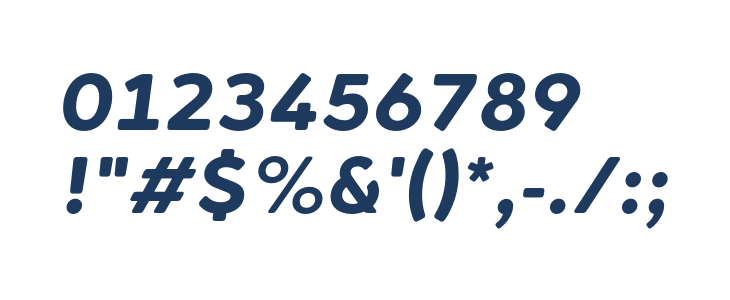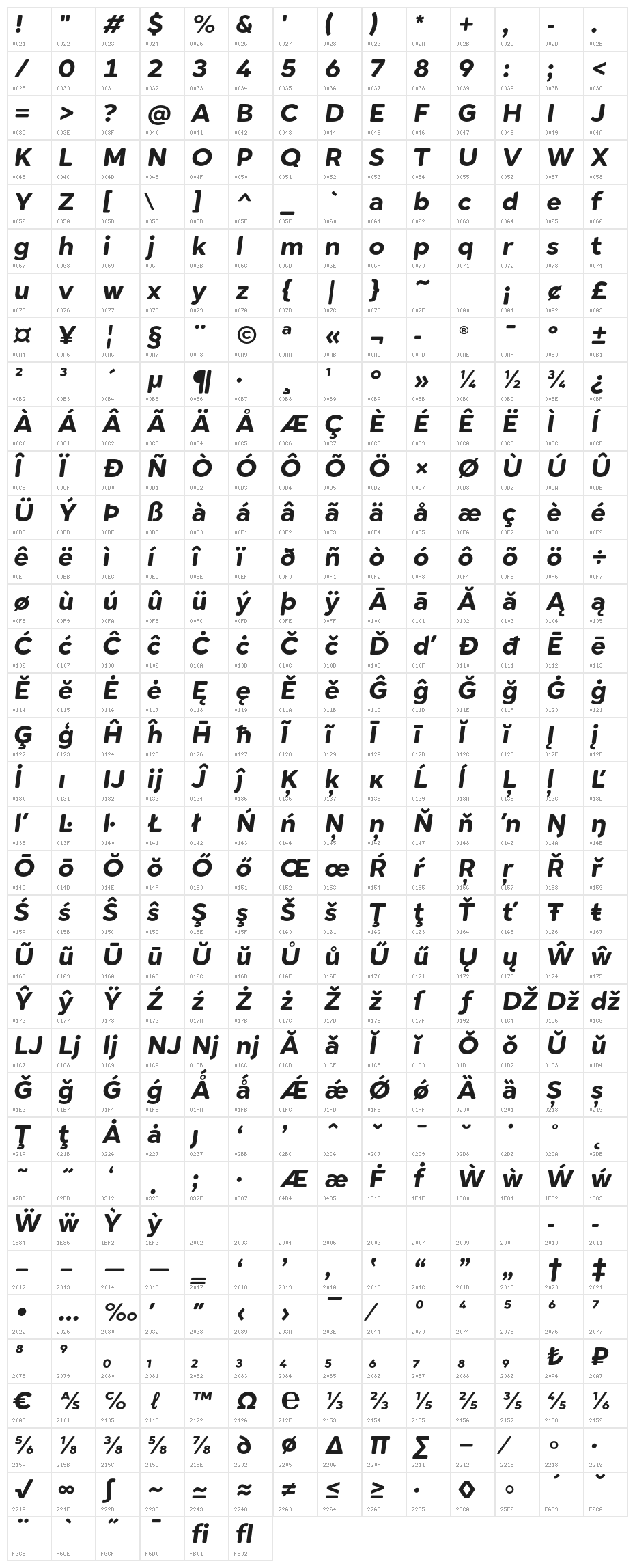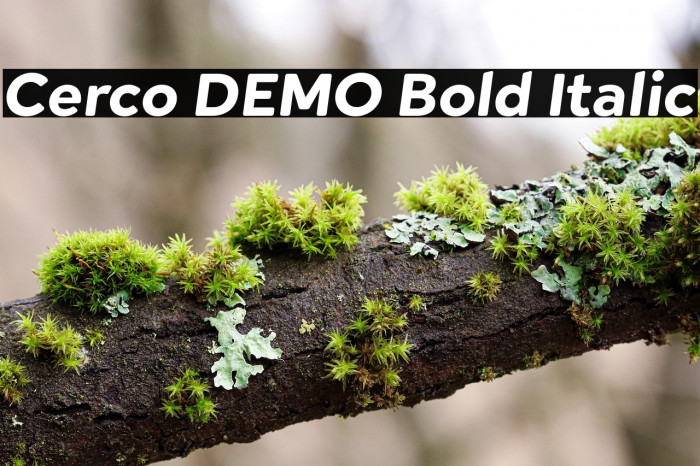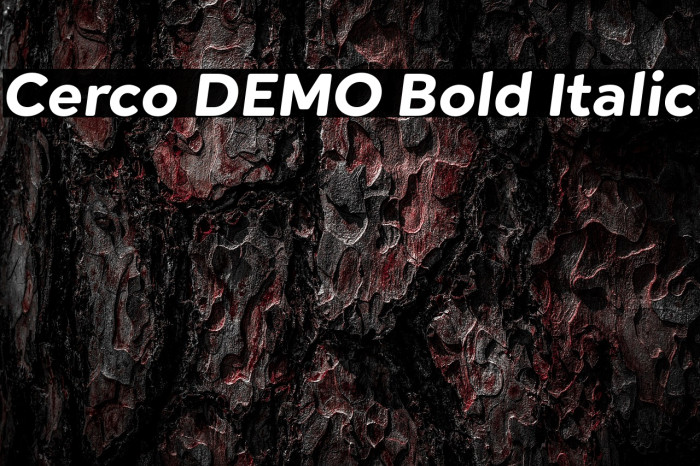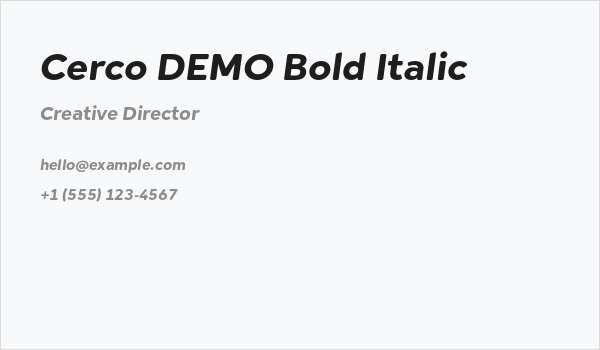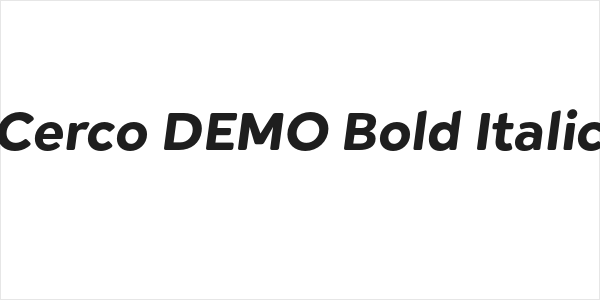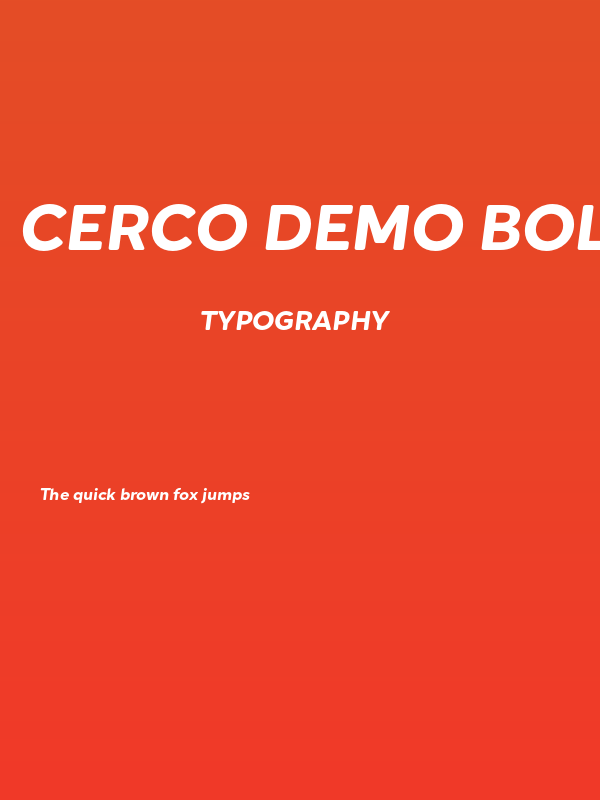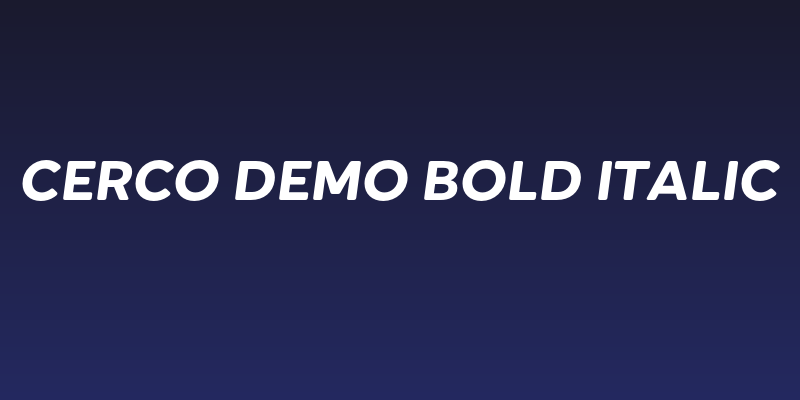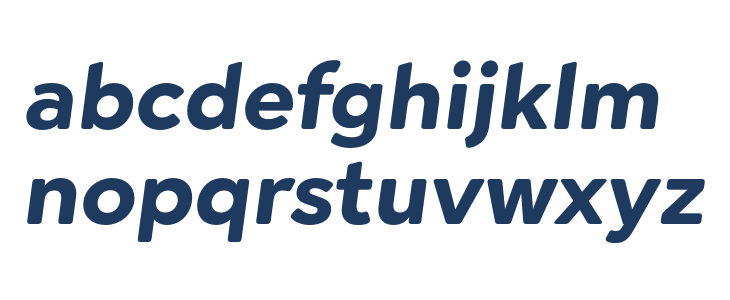
Cerco DEMO Bold Italic Font
Cerco DEMO Bold Italic Description
This font features a bold and italic style, offering a dynamic and modern appearance. The characters are slightly slanted, giving a sense of movement and energy. The strokes are thick and consistent, providing a strong visual impact. The uppercase and lowercase letters are well-proportioned, ensuring readability. Numbers and special characters maintain the same boldness, making them stand out effectively. The overall design is clean and contemporary, suitable for various applications that require a touch of boldness and style.
| Proposed Projects | Ideal for branding, advertising, headlines, and any project that requires a strong, modern typeface. |